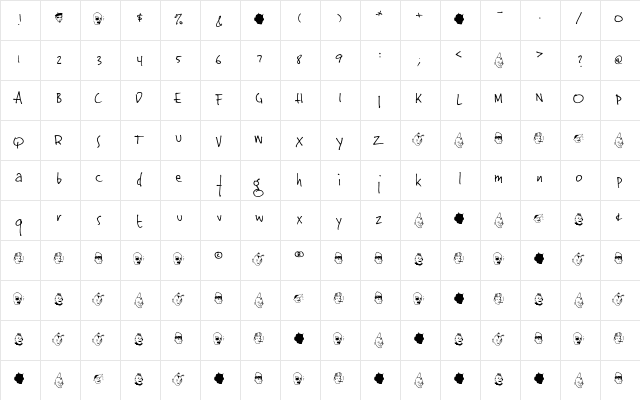
Jinky Regular
Design Context for Jinky Typeface
Jinky is a composed and adaptable typeface that performs quietly and consistently across a wide range of design contexts.